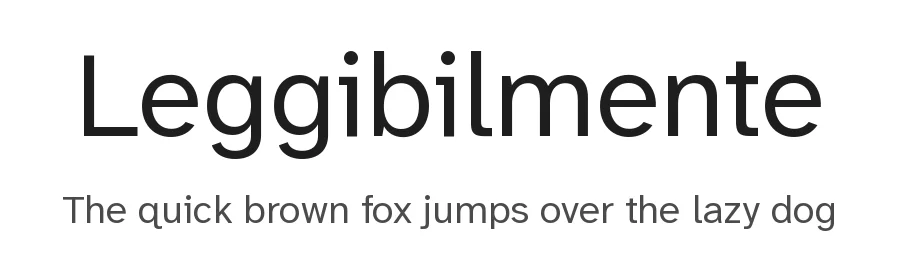
Webstart is a sans-serif font designed by Elizaveta Kulik. It includes 203 glyphs, a regular weight, TTF (TrueType) format, and 109 languages. Webstart is free to download; check the license details on this page before commercial use. Sans-serif fonts like Webstart work best for clean body text, user interfaces, branding, and modern layouts.
- Clean, Modern, Sans Serif
Webstart Font is a versatile sans-serif font that works for both headings and body text. Pair it with a contrasting serif or slab serif font to add visual interest and a clear distinction between titles and body copy.
Webstart Font is a sans serif typeface by Elizaveta Kulik, ideal for logos, invitations, branding, and creative projects.